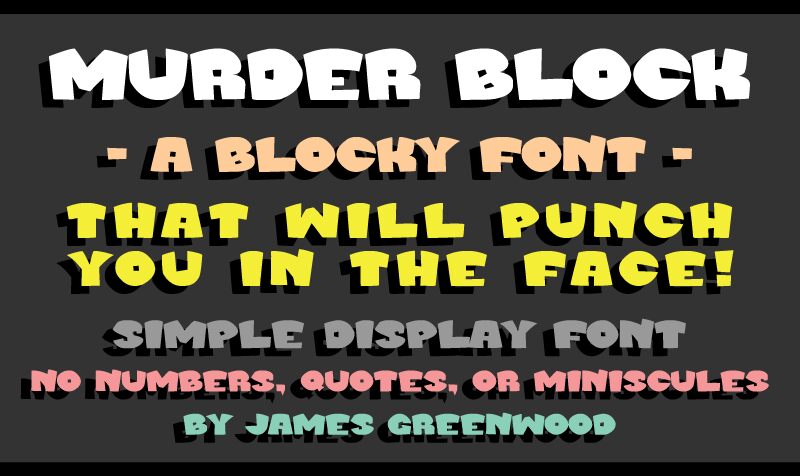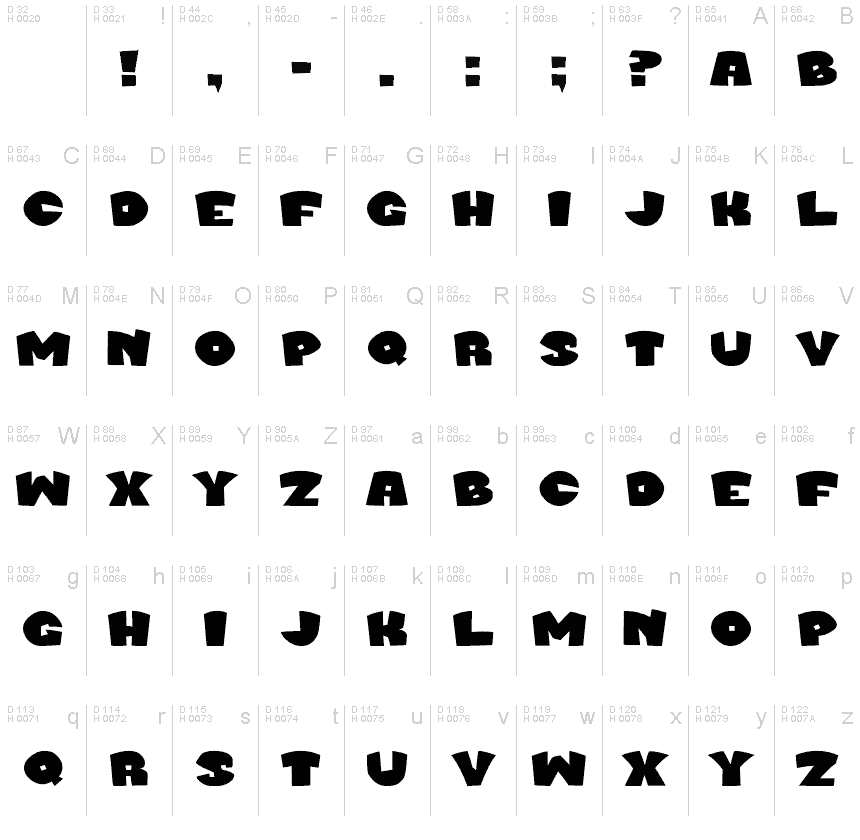
Murder Block Bold
Murder Block Bold is a striking, cartoony display font designed by James Greenwood. With its obscenely fat letterforms and all-caps design, this font exudes a bold, unapologetic presence. The expanded width and simple punctuation lend it a dynamic, impactful aesthetic, well-suited for attention-grabbing headlines and expressive branding.
The font's defining features include its exaggerated, nearly-comical proportions and lack of lowercase characters, creating a bold, eye-catching typographic style. Loose tracking may be necessary to maintain legibility, especially with certain color combinations, showcasing the designer's consideration of practical application.
This font excels in design contexts where a bold, unapologetic aesthetic is desired, such as in comic books, movie posters, and street-style branding. Its unique character can add a touch of playfulness and edge to a variety of projects, making it a versatile choice for designers seeking to make a strong typographic statement.
The font's defining features include its exaggerated, nearly-comical proportions and lack of lowercase characters, creating a bold, eye-catching typographic style. Loose tracking may be necessary to maintain legibility, especially with certain color combinations, showcasing the designer's consideration of practical application.
This font excels in design contexts where a bold, unapologetic aesthetic is desired, such as in comic books, movie posters, and street-style branding. Its unique character can add a touch of playfulness and edge to a variety of projects, making it a versatile choice for designers seeking to make a strong typographic statement.